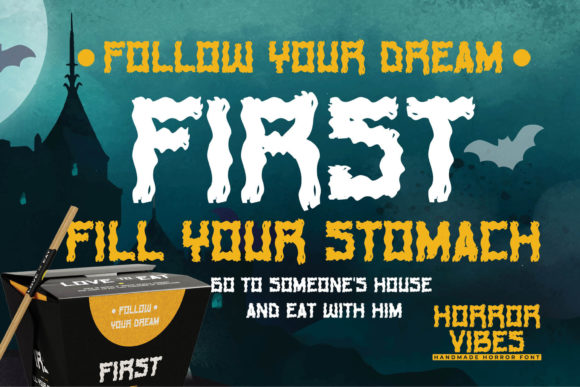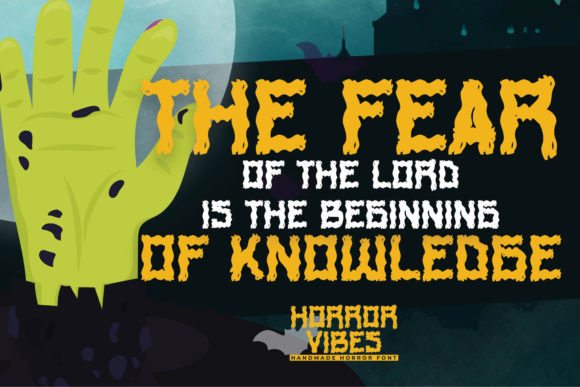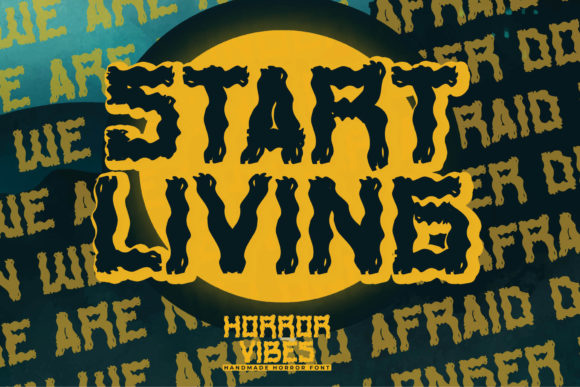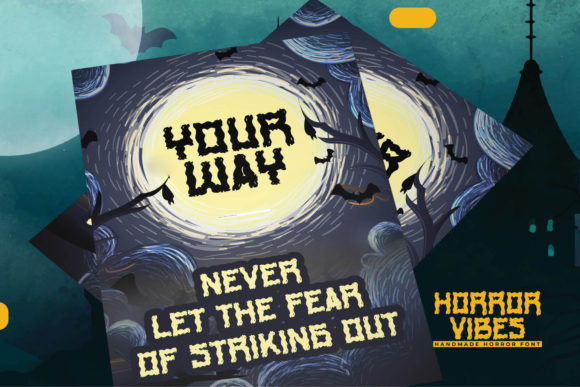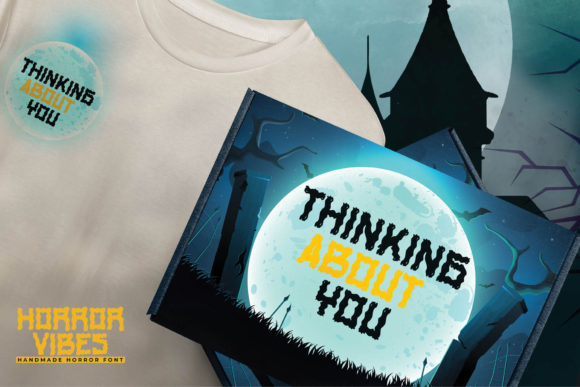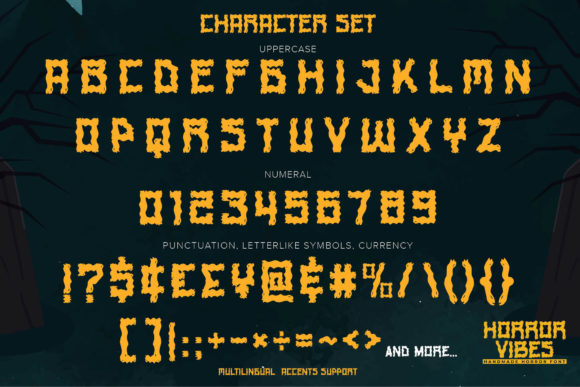
Introduction to Horror Vibes Font
As a designer, there’s nothing quite like the thrill of a midnight brainstorming session, surrounded by empty coffee cups and scattered sketchpads. It’s in these moments that creativity knows no bounds, and the possibilities seem endless. For me, it was during one such session that I stumbled upon the perfect font to bring my spooky vision to life – the Horror Vibes Font.
This high-quality display font is a masterclass in eerie elegance, with its dark, gothic-inspired letters that seem to leap off the page. And the best part? It’s a free download, making it the perfect design resource for any creative project, from haunted house invitations to creepy crafty ideas.
Whether you’re a seasoned designer or just starting out, the Horror Vibes Font is a valuable addition to your toolkit. Its transparent background and bold, eye-catching design make it the perfect choice for any project that requires a little extra oomph – and with its versatility, the only limit is your imagination!
Key Features of Horror Vibes Font
- High-quality design with a unique and eerie aesthetic, perfect for creative projects that require a spooky atmosphere.
- Features a bold and eye-catching font style, ideal for use in posters, flyers, and other promotional materials.
- Unique characteristics include a distressed and worn look, giving it a horror movie-inspired feel.
Honest Review: Horror Vibes Font
I recently had the chance to work with the Horror Vibes Font and I must say it’s a great addition to any design resource library. This font is perfect for those creative projects that require a spooky or eerie atmosphere. One of the things I appreciate about this font is its high quality, which ensures a smooth and seamless experience when using it.
One of the standout features of the Horror Vibes Font is its transparent background, making it easy to place on any image or design without any distractions. This makes it perfect for designers who need to create a cohesive and immersive experience for their users.
What Works Well:✨
- Transparent background for easy placement
Limitations:⚠️
- Limited character set, may not be suitable for long-form content
- No bold or italic variations available
Overall, I’m impressed with the Horror Vibes Font and would definitely recommend it to designers looking for a unique and high-quality design resource. With a little creativity, this font can add a whole new level of depth to your creative project.
Using the Horror Vibes Font
With its transparent background, the Horror Vibes Font is perfect for creative projects that require a spooky or eerie atmosphere. You can use it for designing horror movie posters, creating haunted house invitations, or even making creepy social media graphics.
To get the most out of the Horror Vibes Font, use it in combination with other design elements like creepy images, dim lighting effects, and bold colors. You can also experiment with different font sizes, styles, and colors to create a unique and captivating design.
The Horror Vibes Font is perfect for designers who work on horror-themed projects, such as:
- Horror movie posters and trailers
- Haunted house invitations and decorations
- Creative social media graphics and ads
- Spooky book covers and interior designs